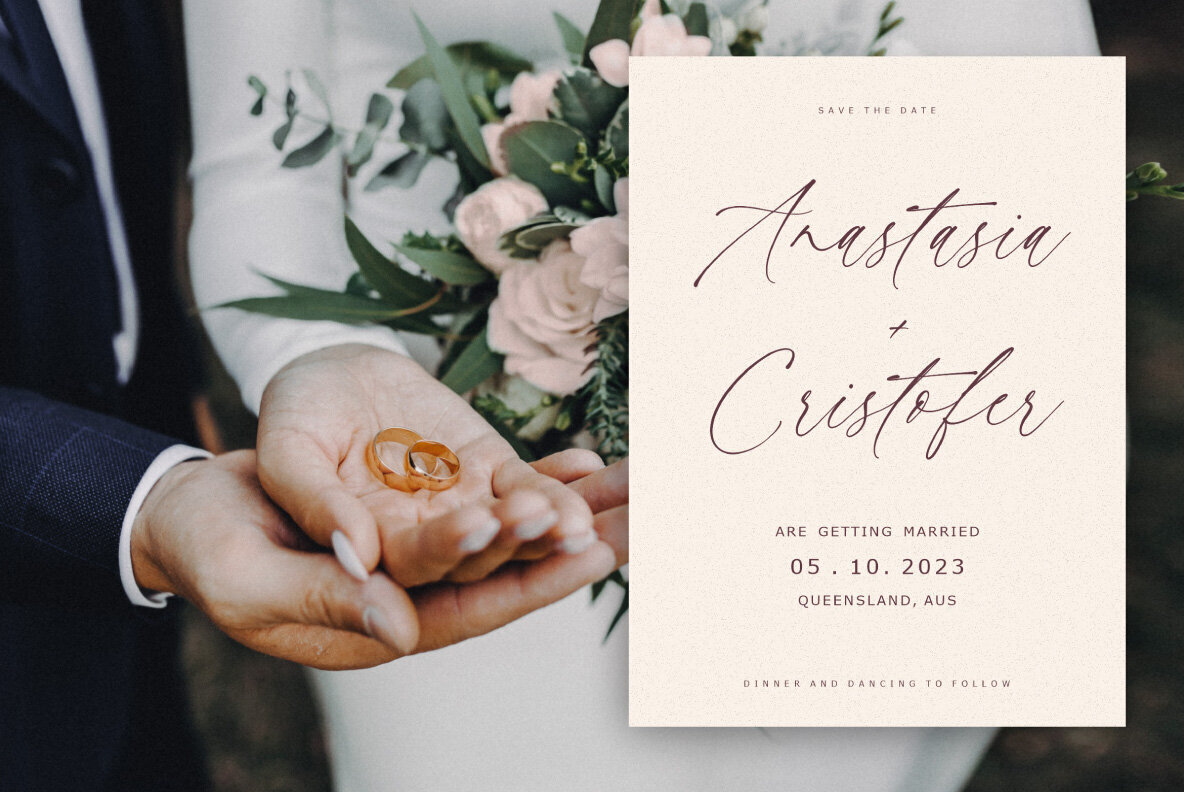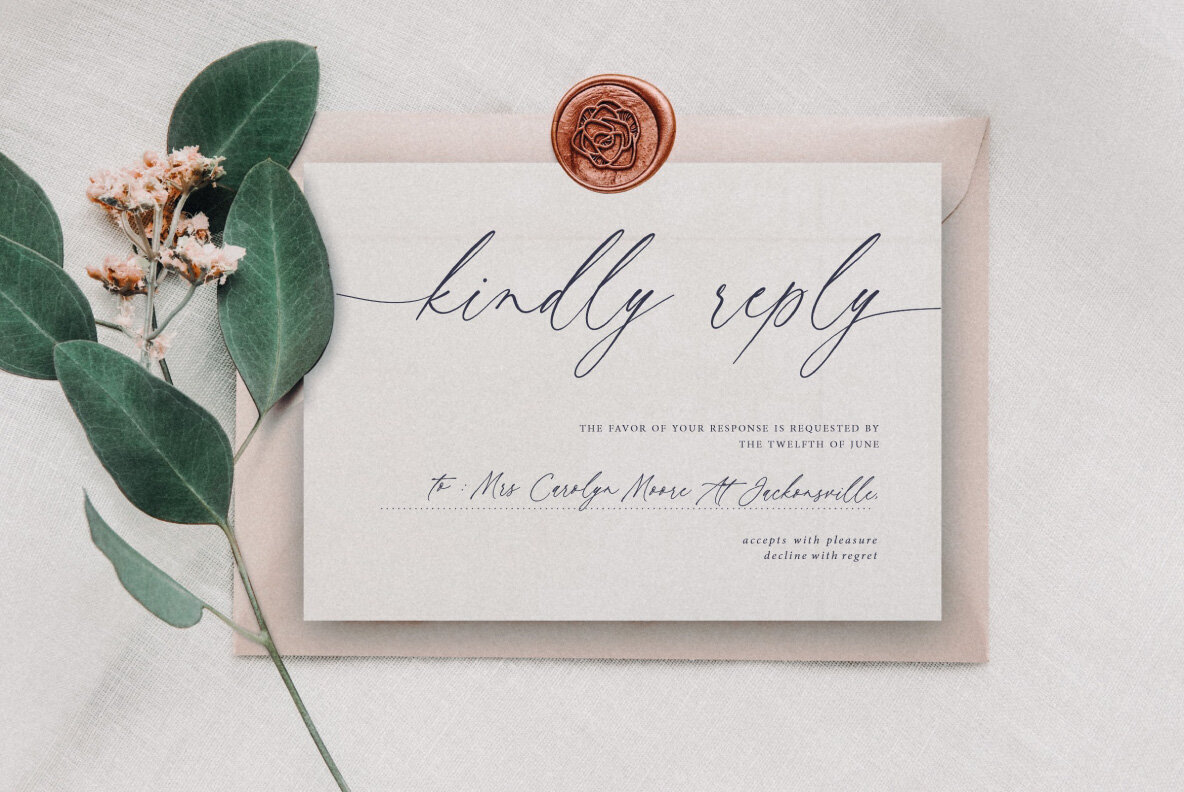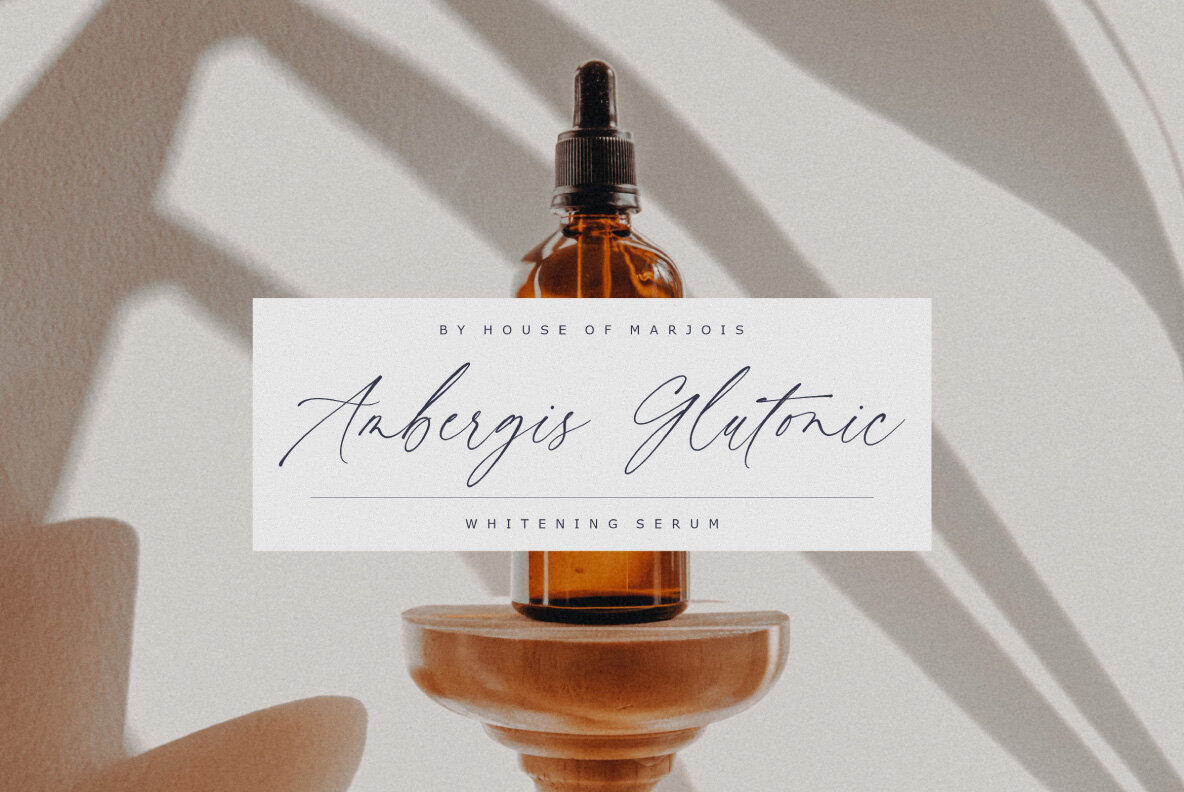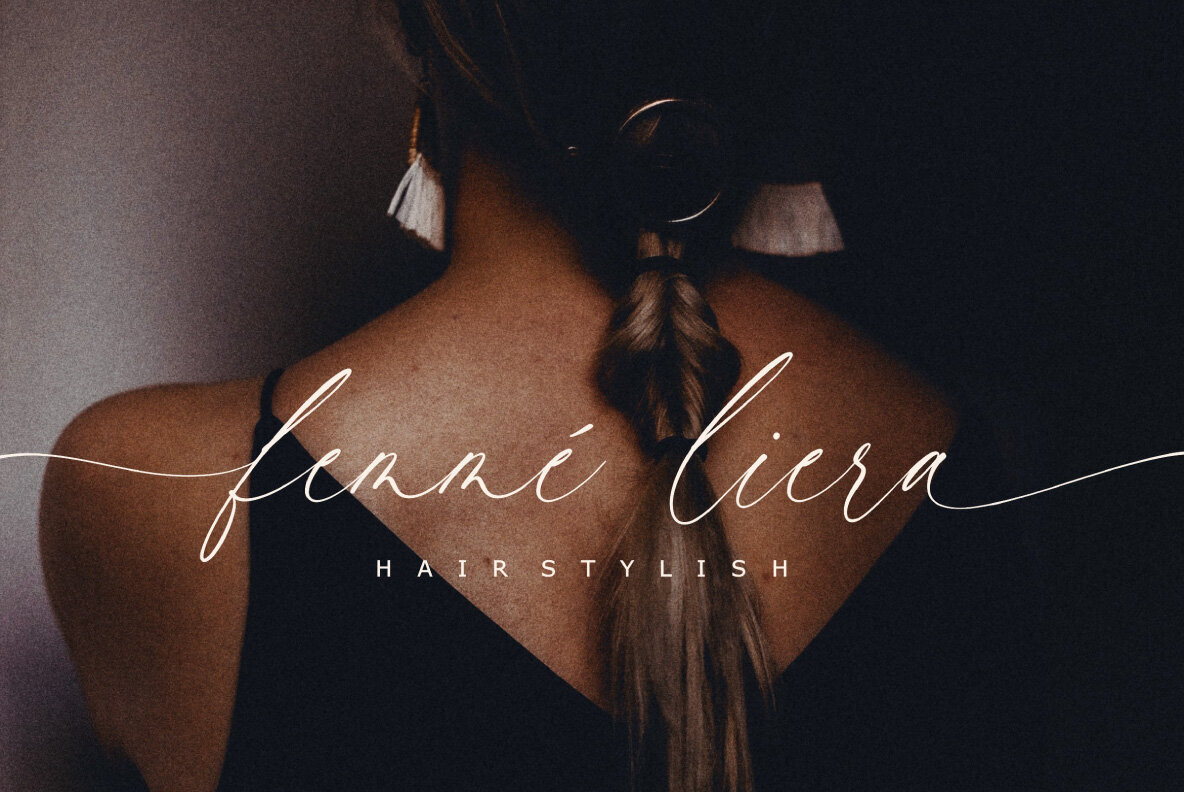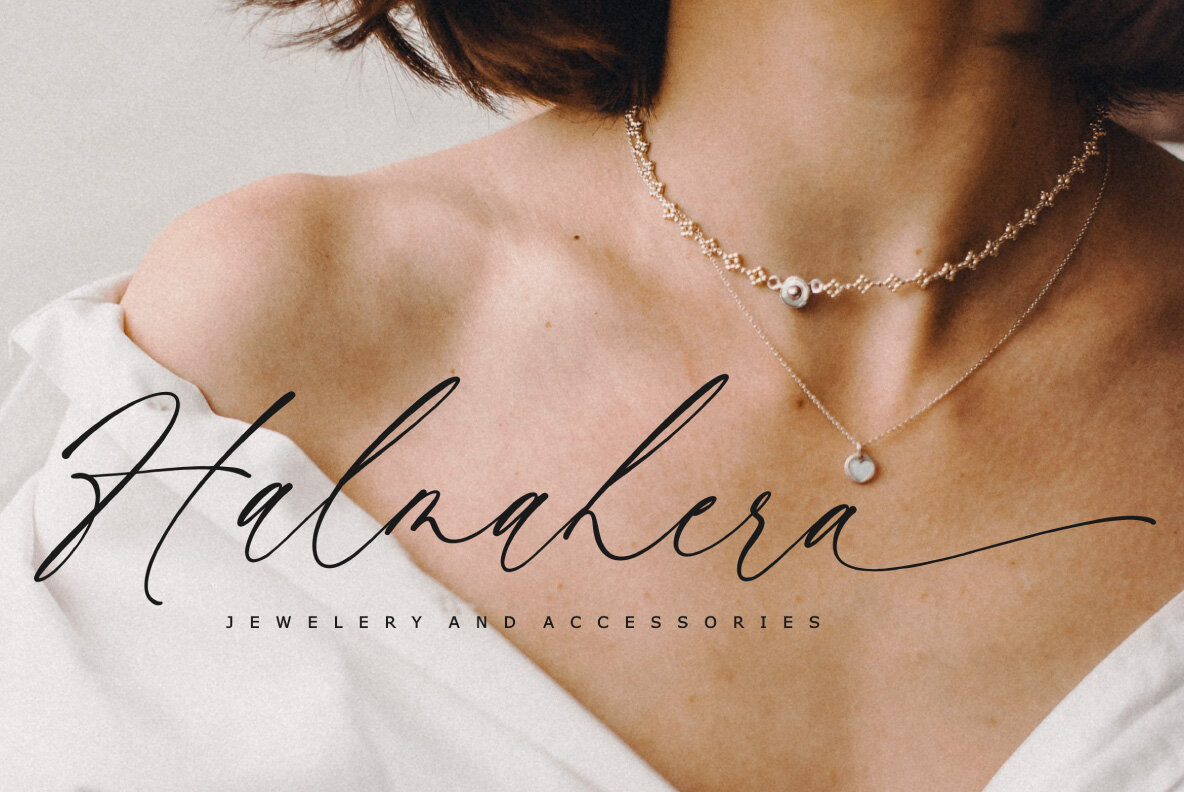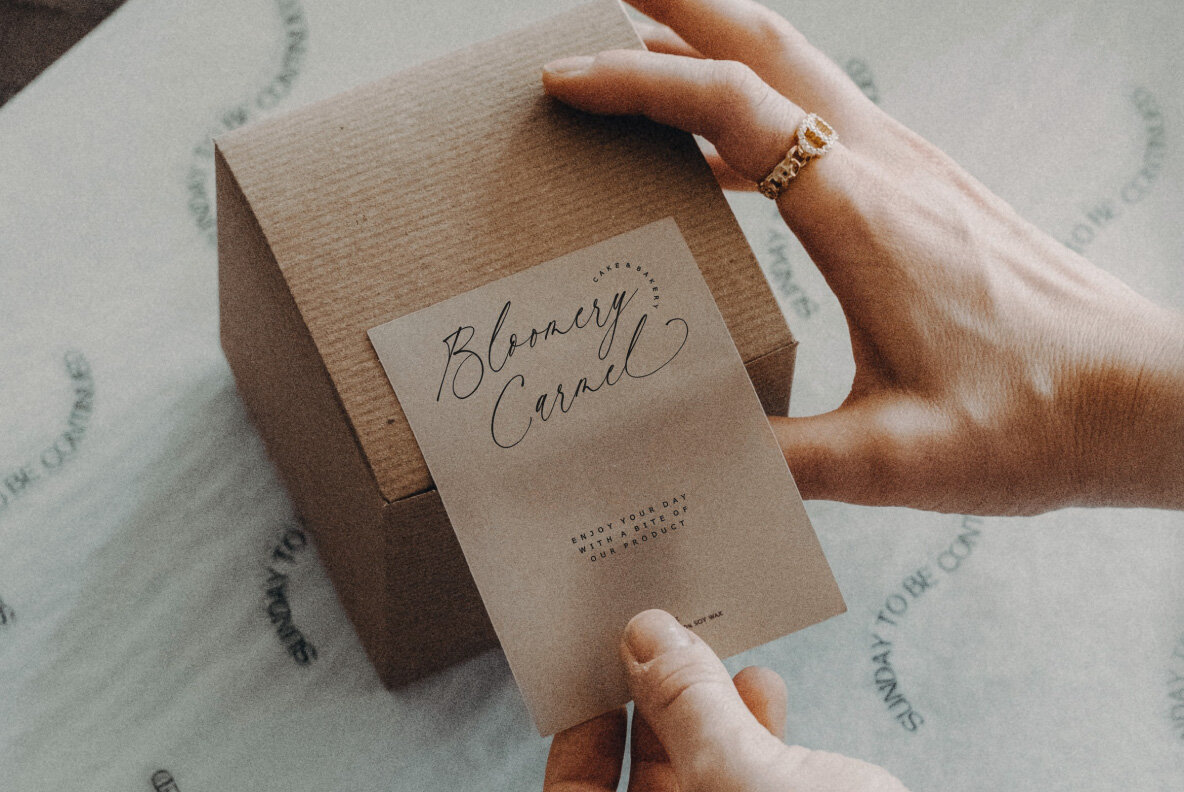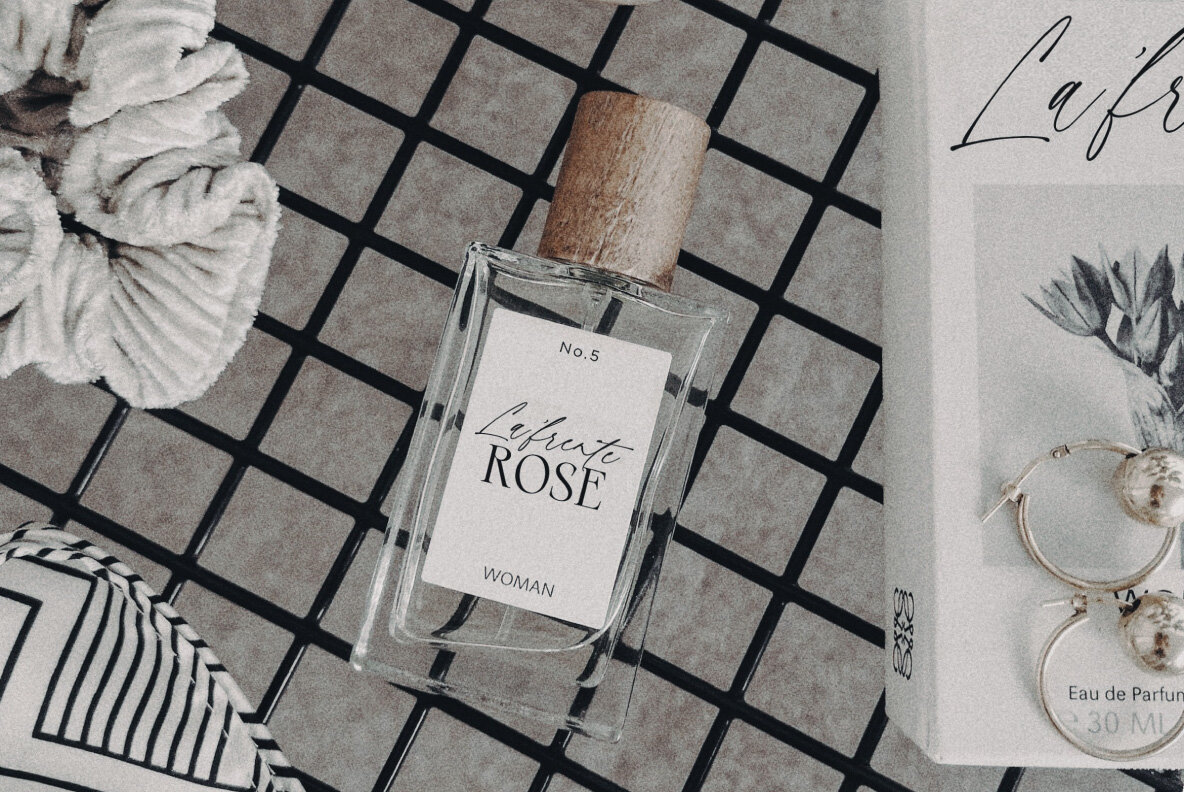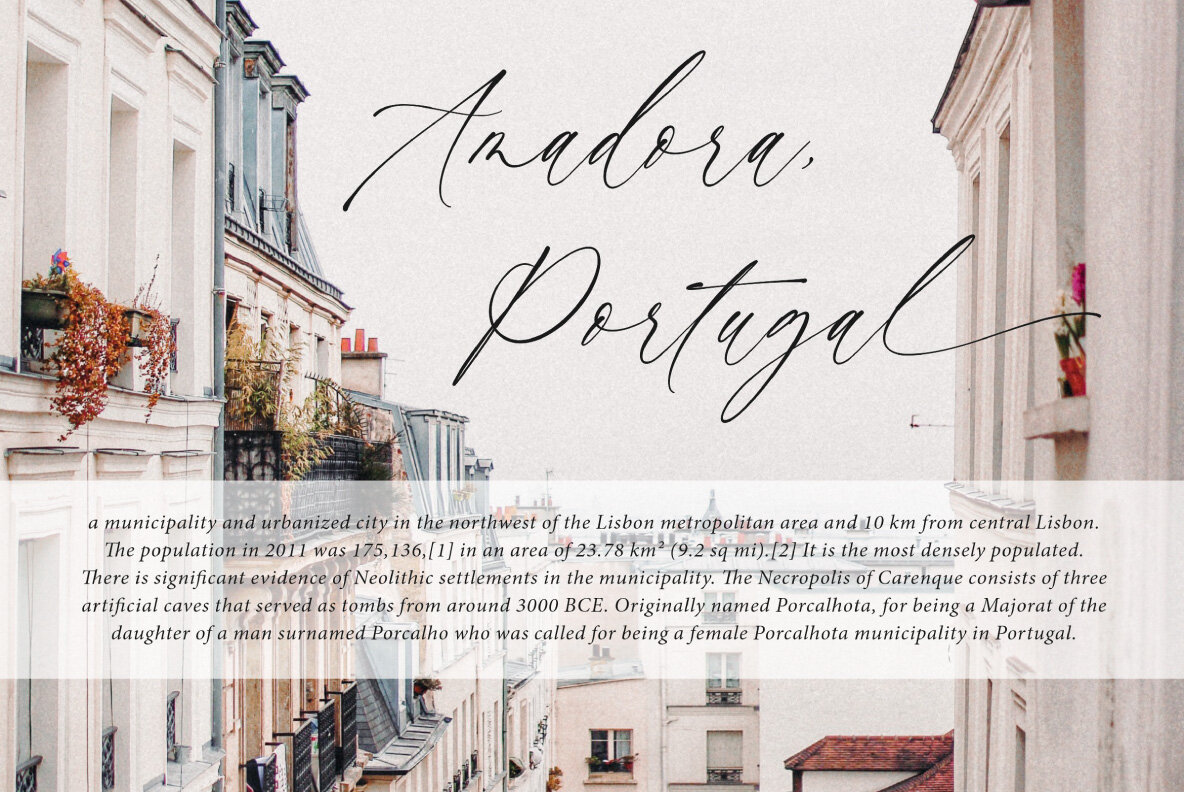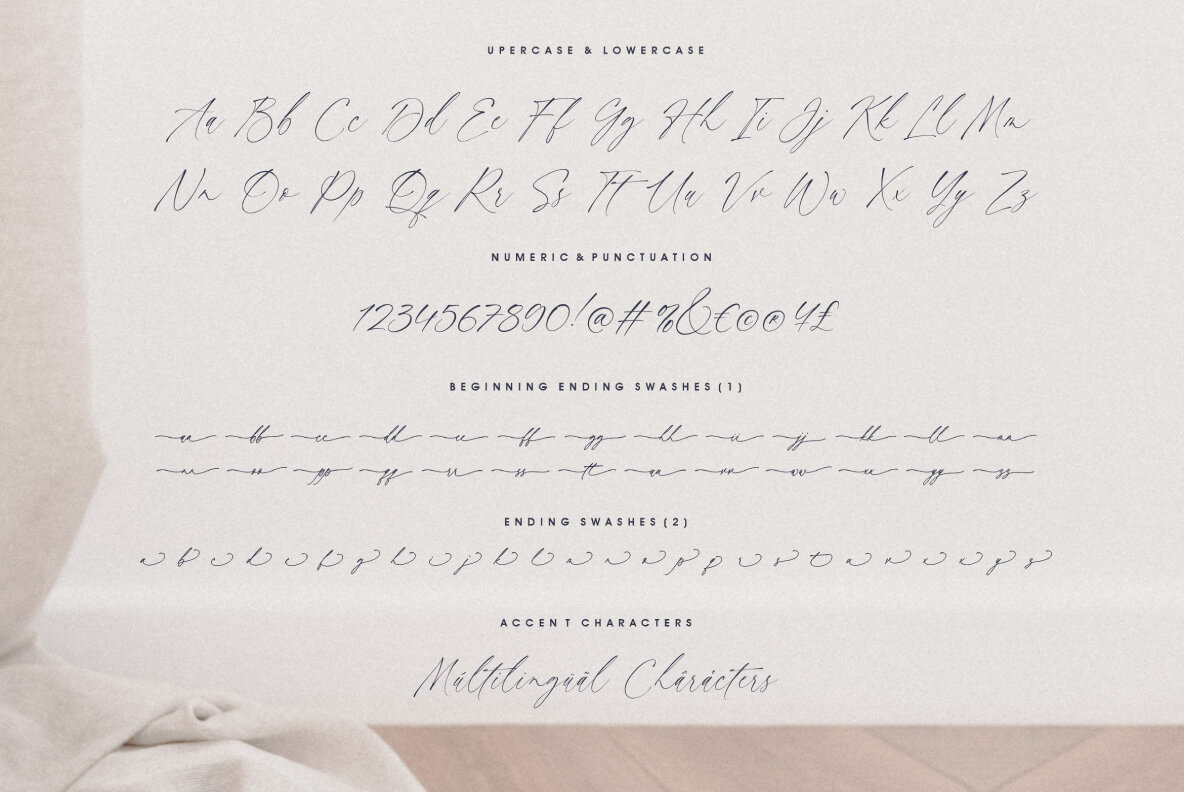
Ms Pianist Font
Ms Pianist Regular
The Ms Pianist typeface by Lunas Type strikes a balance between modern elegance and handwritten charm. Its natural handwriting aesthetic lends a chic flair to any design project, be it wedding stationery or branding materials. With harmonious swashes and sophisticated ligatures, this typeface adds a personal, luxurious touch to diverse applications ranging from website design to social media content.Ms Pianist: Elegant Handwriting Typeface